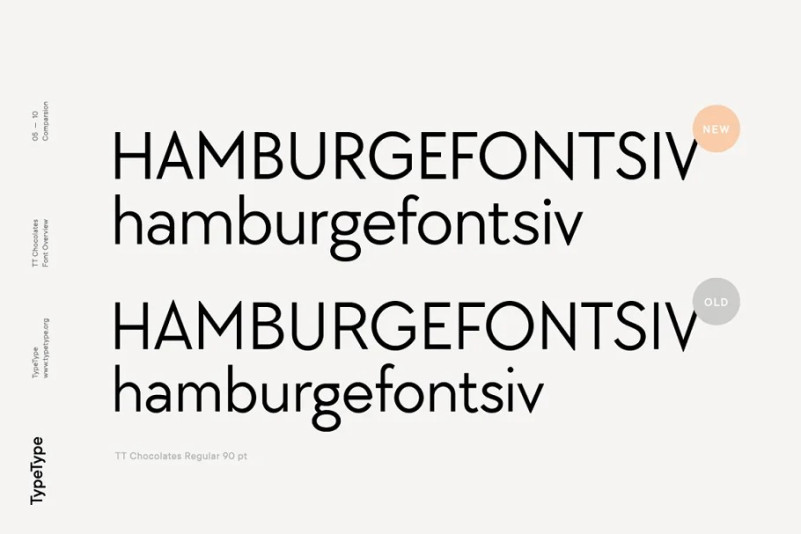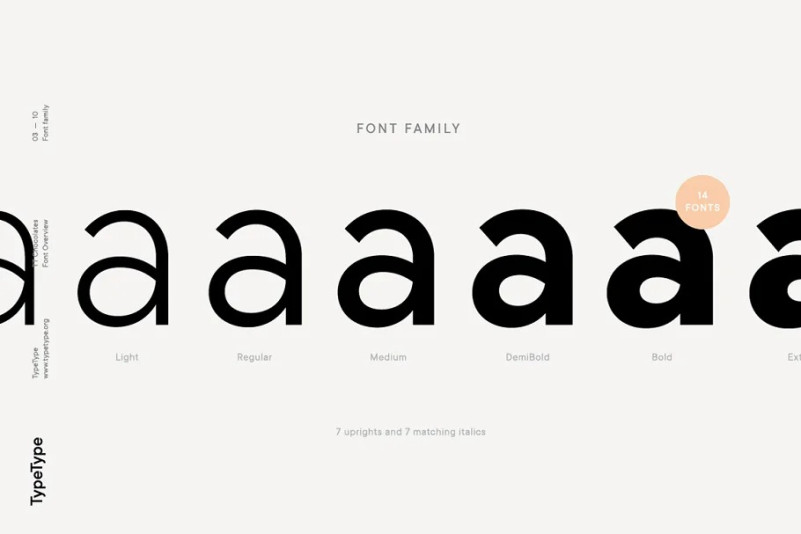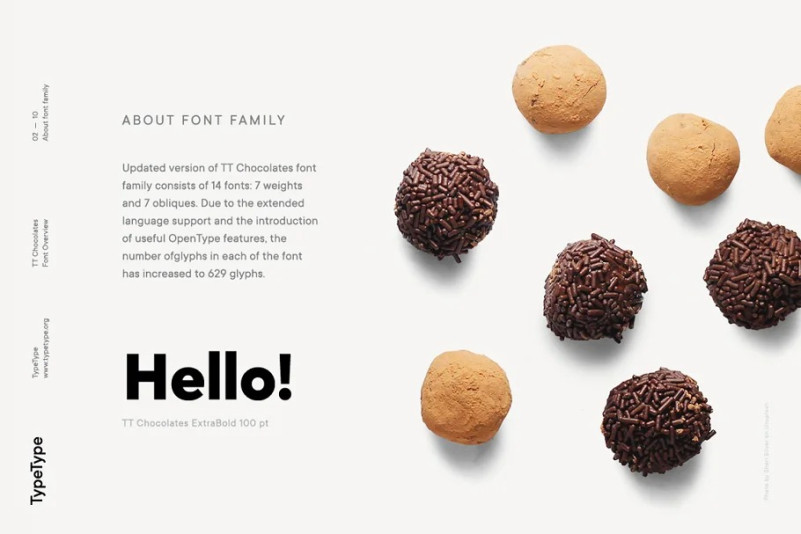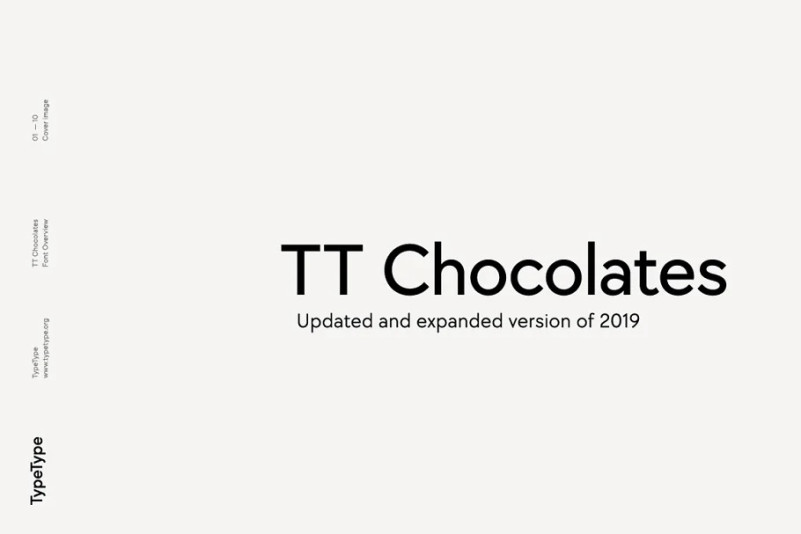
TT Chocolates Font Family
TT Chocolates Sans Serif Font is a mix of classic geometric and a bit of humanistic grotesque. The TT Chocolates font family consists of 14 fonts: 7 weights and 7 obliques. Due to the extended language support and the introduction of useful OpenType features, the number of glyphs in each of the font has increased to 629 glyphs.
Especially for your convenience, we have divided the stylistic alternates into two sets: the letters a, g are located in stylistic set 01, and the letters I, l, y are in the second stylistic set. This solution allows you to turn them on independently of each other. We also did not forget about the standard and discretional ligatures, old-style figures, and other useful features.
After all the updates, TT Chocolates has become a sturdy text sans-serif with a wide palette of characters, dense typesetting, and very balanced proportions. And thanks to the manual TrueType hinting, TT Chocolates is also perfect for using on the web.